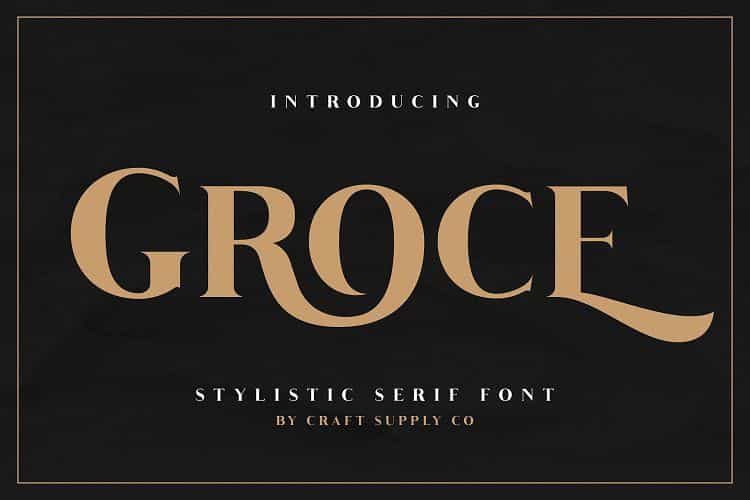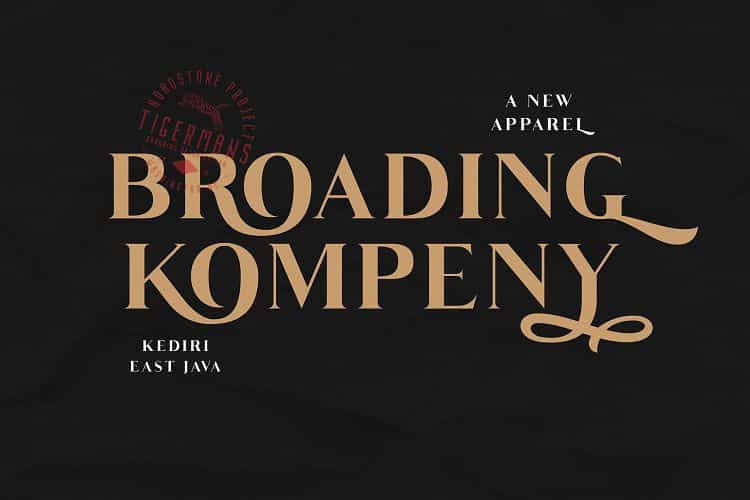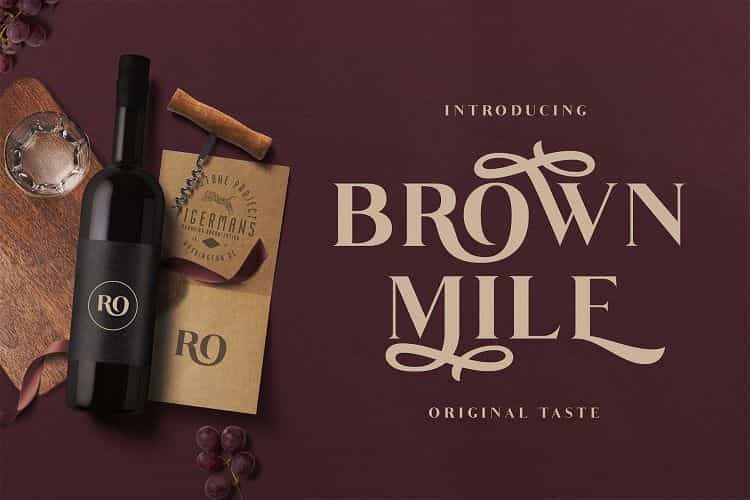
Discover Groce Font, part of the Serif collection—a versatile and unique font perfect for adding a personal touch to your projects. Download it for free and enjoy crafting designs with style, from invitations to social media posts. This font is available exclusively for personal use, giving you the freedom to create without limits. Unlock your creativity with Groce Font today!
Groce Stylistic Serif Font is a serif font that brings out elegance and it has many options, especially for alternative. Groce – Stylistic Serif Font is a useful tool for creating beautiful decorative lettering which can be used on book covers, posters and packaging.